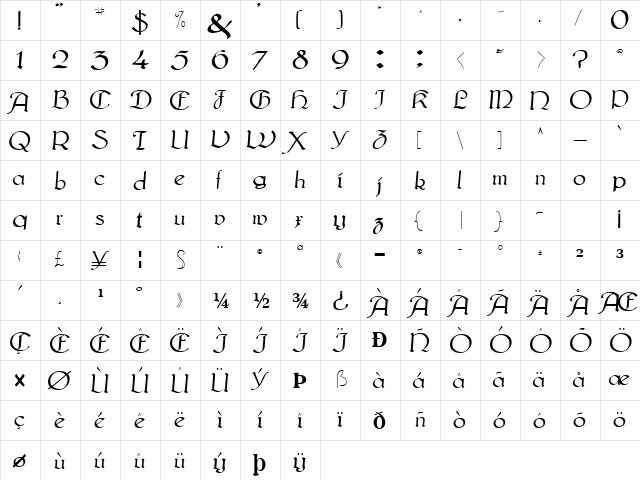
MetalPenNew113 Regular
Design Context for MetalPenNew113 Typeface
MetalPenNew113 takes a measured approach to typography — its balanced proportions and neutral character make it a reliable workhorse for both digital and print work.